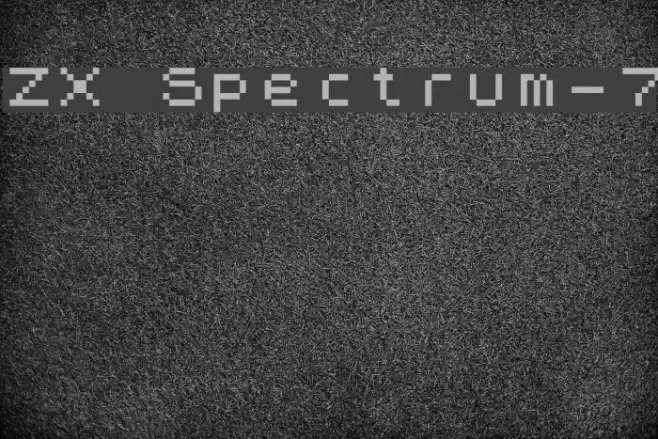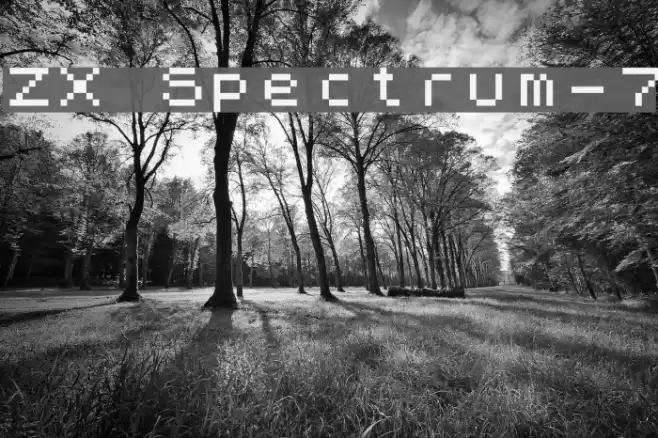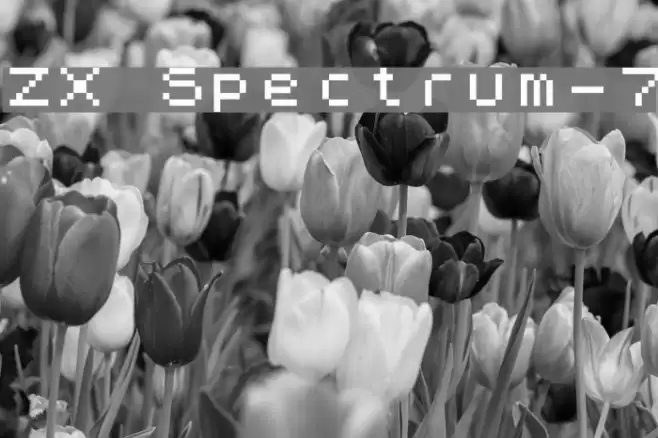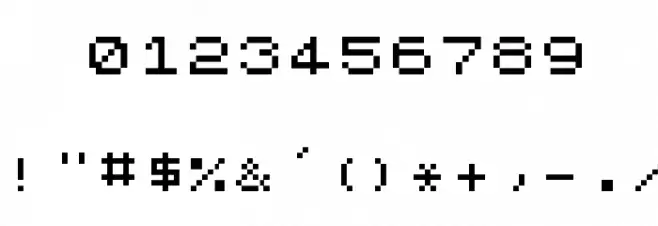
ZX Spectrum-7 Font
ZX Spectrum-7 Description
This font is a pixelated, monospaced typeface reminiscent of early computer and video game graphics. Each character is constructed using a grid-like pattern, giving it a distinctly retro and digital appearance. The uniformity in character width and height contributes to its structured and mechanical look. The uppercase and lowercase letters maintain a consistent style, with minimal differentiation in size, emphasizing the blocky aesthetic. Numbers and special characters are similarly designed, ensuring a cohesive visual experience across all glyphs. This font evokes nostalgia for classic computing and gaming eras, making it ideal for projects that aim to capture a vintage digital feel.
A pixelated, monospaced typeface with a retro digital aesthetic from Uncategorized fonts.
- Proposed Projects: Ideal for retro video games, digital art projects, tech-themed designs, and nostalgic branding.
- Overall Style: Vintage
- Use Case: Logos, Digital displays, Retro-themed projects